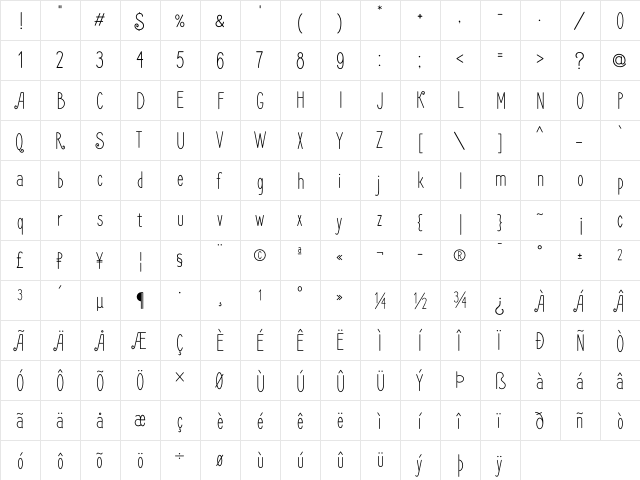
Frenchpress Regular
| Foundry | Yaroslava Sadomova & TypeType |
| Designer | Yaroslava Sadomova |
Design Context for Frenchpress Typeface
Frenchpress takes a measured approach to typography — its balanced proportions and neutral character make it a reliable workhorse for both digital and print work.